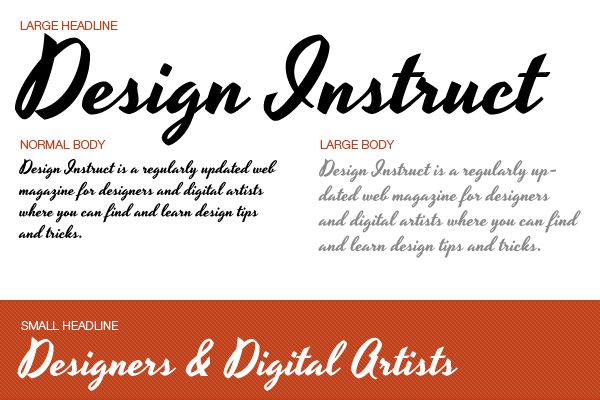
Free elegant dancing script font for wedding / invitation cards. Wisdom script is a fun and playful script font which is perfect for design and craft projects. Edmondson with regular weight and style, download file name is wisdomscriptaj.otf. Fonts are enormously powerful in setting the tone and personality of a brand. This font is partial and free for personal use. Wisdom script is a free fonts that is fantastic for headlines, initials or logo script. Best design, best graphic new update everyday full & free download by psdkeys. No problem, we have it here [:: Check out these awesome free script fonts! Otf and ttf files included. Wisdom script was originally designed for woods of wisdom, a 50 part poster series on bad advice. Wisdom script font vectors and psd free download. This exclusive font is available to download for free with our premium license for commercial use. You can download the wisdom script font free that includes the google, mission, thirsty, sugar, and many other script fonts. Wisdom script font is a super cool script font family. Collection of most popular free to download fonts for windows and mac. A font is not just a font; These are really nice looking fonts that can be used in everything from logo design to posters! Wisdom script is a fun and playful script font which is perfect for design and craft projects. The web is awash with unfastened cursive fonts if you understand in which to appear. Wisdom script is a fun and playful script font which is perfect for design and craft tasks. Like every geometric script fonts, wisdom will be great for your print works. Download free wisdom script fonts for windows and mac. Moreover, you can embed it to your 12.02.2019 · wisdom script font. Browse > fonts > wisdom script by james t. Free elegant dancing script font for wedding / invitation cards. So, kindly make sure to use it just for your. 32,097 downloads (1 yesterday) 1 comment free for personal use. Here are some fonts similar to wisdom script. Yellow design studio took the charge for designing and releasing it for the first time. Please enter your email address receive a free font daily from fonts101.com in your email!
10 Free Beautiful Script Fonts To Download. Wisdom script font is a super cool script font family. Download wisdom script, font family wisdom script by james t. Here at our site, we are providing this unique font and the whole family for free and you can download it for free. We have 1 free wisdom script fonts to offer for direct downloading · 1001 fonts is your favorite site for free fonts since 2001. Report a violation add to list. Wisdom script ai generated in 2011 by fontlab studio. So, kindly make sure to use it just for your. No problem, we have it here [:: Uploaded by sandy (1 styles). Wisdom script ai font info. Yellow design studio took the charge for designing and releasing it for the first time. Edmondson with regular weight and style, download file name is wisdomscriptaj.otf. Download wisdom script for free today. We have 1 free edgy, wisdom script fonts to offer for direct downloading · 1001 fonts is your favorite site for free fonts since 2001. This exclusive font is available to download for free with our premium license for commercial use.
Wisdom Script Font Free Download All Your Fonts. Yellow design studio took the charge for designing and releasing it for the first time. We have 1 free edgy, wisdom script fonts to offer for direct downloading · 1001 fonts is your favorite site for free fonts since 2001. No problem, we have it here [:: Download wisdom script for free today. Wisdom script ai generated in 2011 by fontlab studio. Here at our site, we are providing this unique font and the whole family for free and you can download it for free. Wisdom script ai font info. Report a violation add to list. Download wisdom script, font family wisdom script by james t. This exclusive font is available to download for free with our premium license for commercial use. Uploaded by sandy (1 styles). Wisdom script font is a super cool script font family. We have 1 free wisdom script fonts to offer for direct downloading · 1001 fonts is your favorite site for free fonts since 2001. Edmondson with regular weight and style, download file name is wisdomscriptaj.otf. So, kindly make sure to use it just for your.
Yellow design studio took the charge for designing and releasing it for the first time.
50 Free Cursive Handwritten Fonts To Spice Up Your Design Hongkiat. So, kindly make sure to use it just for your. We have 1 free wisdom script fonts to offer for direct downloading · 1001 fonts is your favorite site for free fonts since 2001. Yellow design studio took the charge for designing and releasing it for the first time. Edmondson with regular weight and style, download file name is wisdomscriptaj.otf. Download wisdom script for free today. Wisdom script font is a super cool script font family. Wisdom script ai generated in 2011 by fontlab studio. Report a violation add to list. Wisdom script ai font info. We have 1 free edgy, wisdom script fonts to offer for direct downloading · 1001 fonts is your favorite site for free fonts since 2001. Here at our site, we are providing this unique font and the whole family for free and you can download it for free. No problem, we have it here [:: This exclusive font is available to download for free with our premium license for commercial use. Download wisdom script, font family wisdom script by james t. Uploaded by sandy (1 styles).
Wisdom script ai generated in 2011 by fontlab studio.
Fonts are enormously powerful in setting the tone and personality of a brand. Download wisdom script for free today. Wisdom script was originally designed for woods of wisdom, a 50 part poster series on bad advice. Yellow design studio took the charge for designing and releasing it for the first time. Script fonts are a quite popular font fashion used for print designing. Wisdom script is a fun and playful script font which is perfect for design and craft projects. Free elegant dancing script font for wedding / invitation cards. Wisdom script is a fun and playful script font which is perfect for design and craft projects. These are really nice looking fonts that can be used in everything from logo design to posters! This exclusive font is available to download for free with our premium license for commercial use.